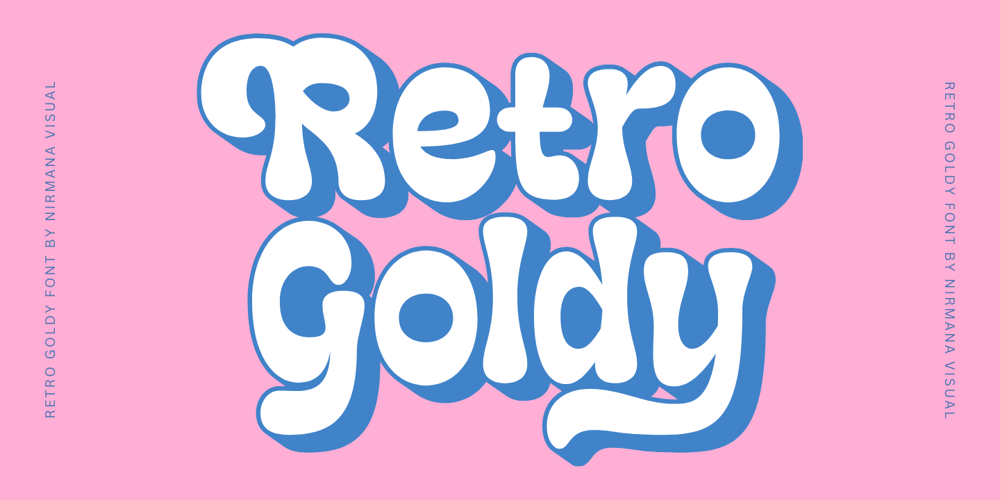
Retro Goldy Font Family was designed by Sigit Dwipa and published by Nirmana Visual. Retro Goldy contains 2 styles and family package options. Introducing our new retro style font, designed to take you back to the good old days. With its bold and playful design, this font is perfect for creating eye-catching designs that evoke nostalgia and fun.Inspired by the groovy typography of the 60s and 70s, this font features thick and rounded letterforms, playful curves, and a distinct retro feel. Its versatility and legibility make it a great choice for a wide range of projects, from branding and packaging to posters and social media graphics.